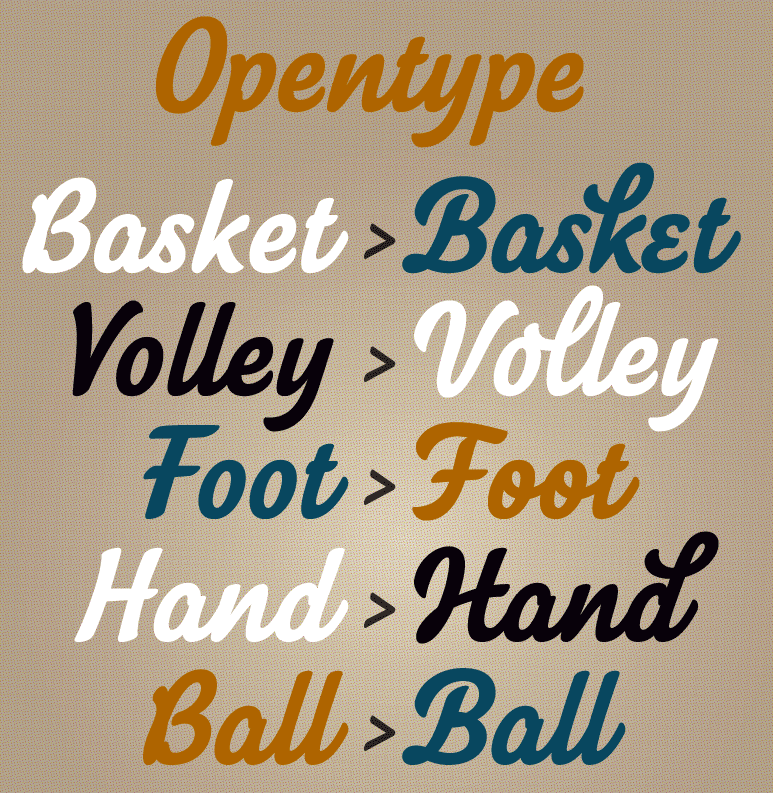
Elliott Amblard
Together, Elliott Amblard (France) and Gia Tran created the bold signage / retro baseball script typeface Paname FY at FontYou in 2014. At Long Type, he created Oradour: Inspired by french vernacular lettering, it is also a very contemporary re-interpretation of Eurostyle typeface (Aldo Novarese) by stripping it from this dated aesthetic. FontYou link.